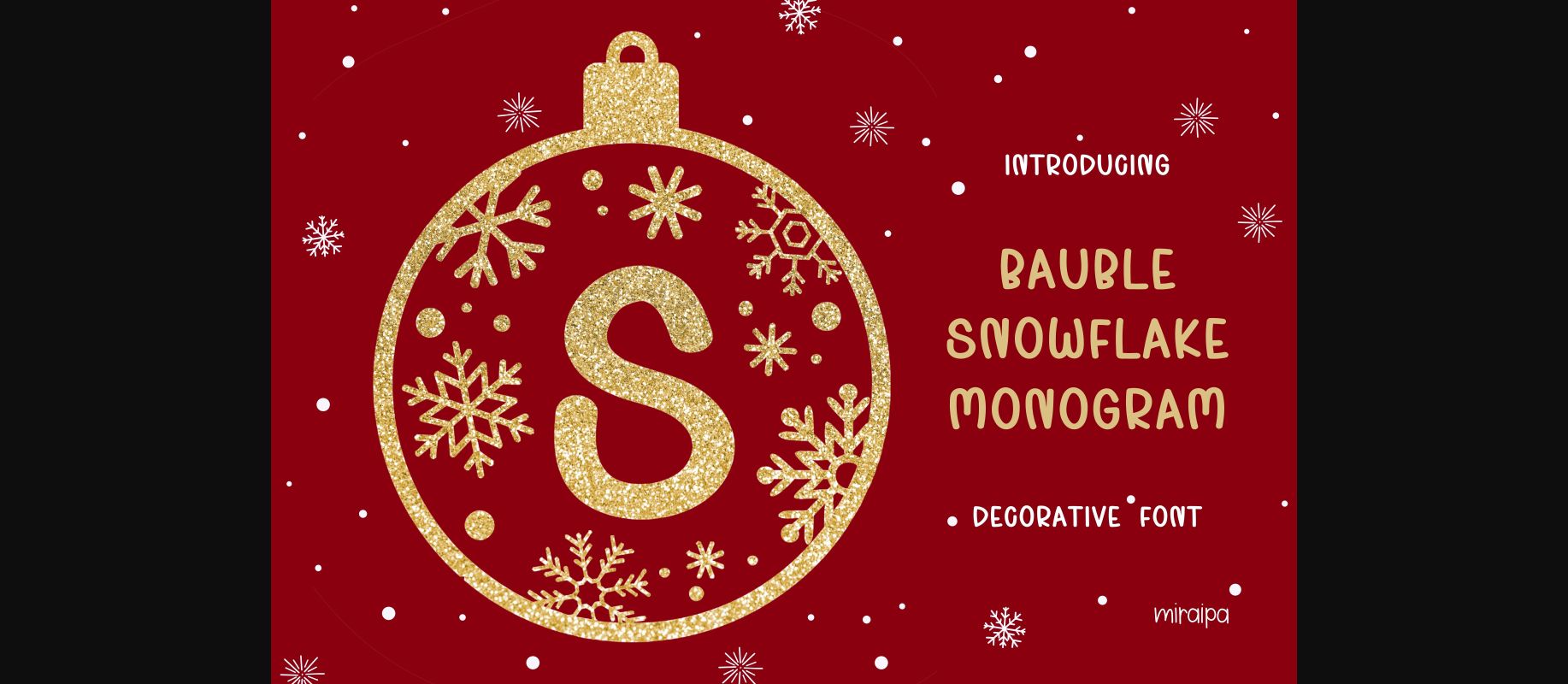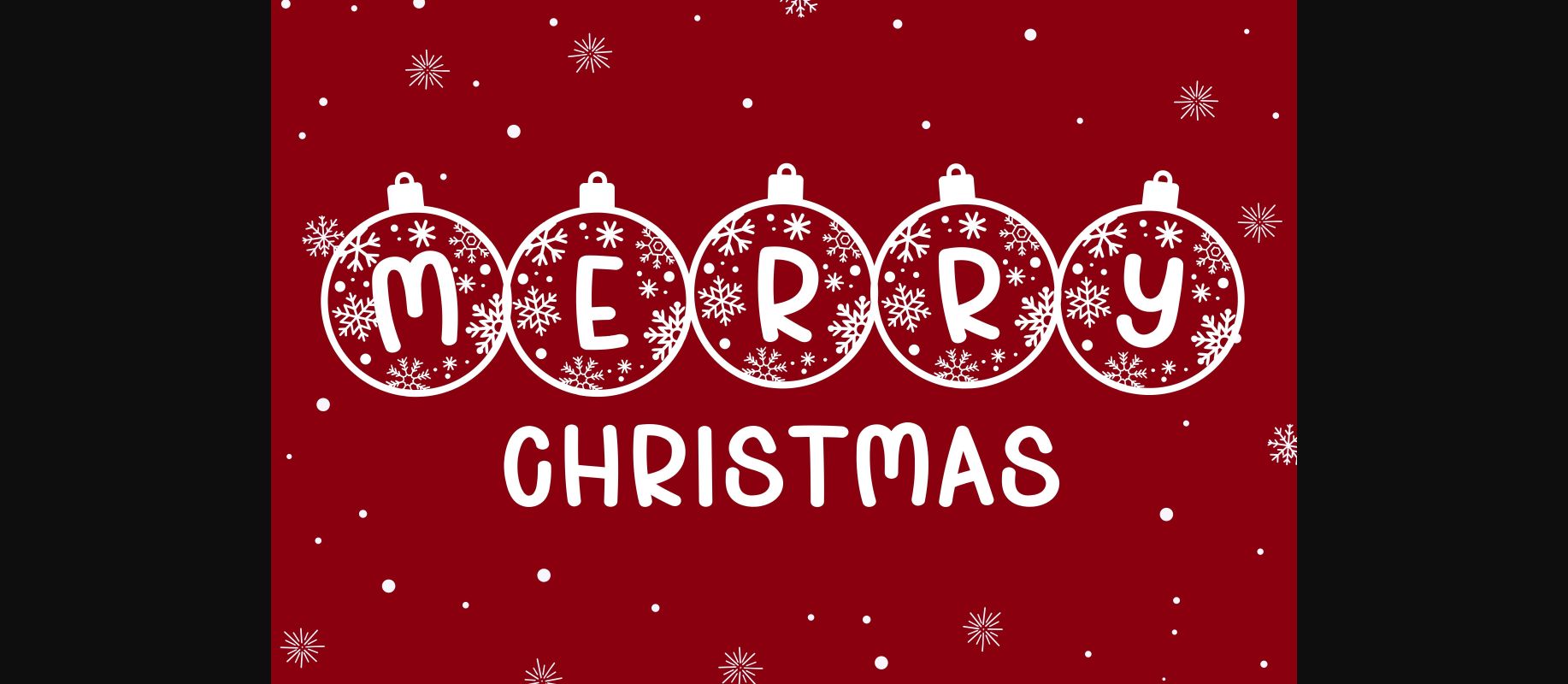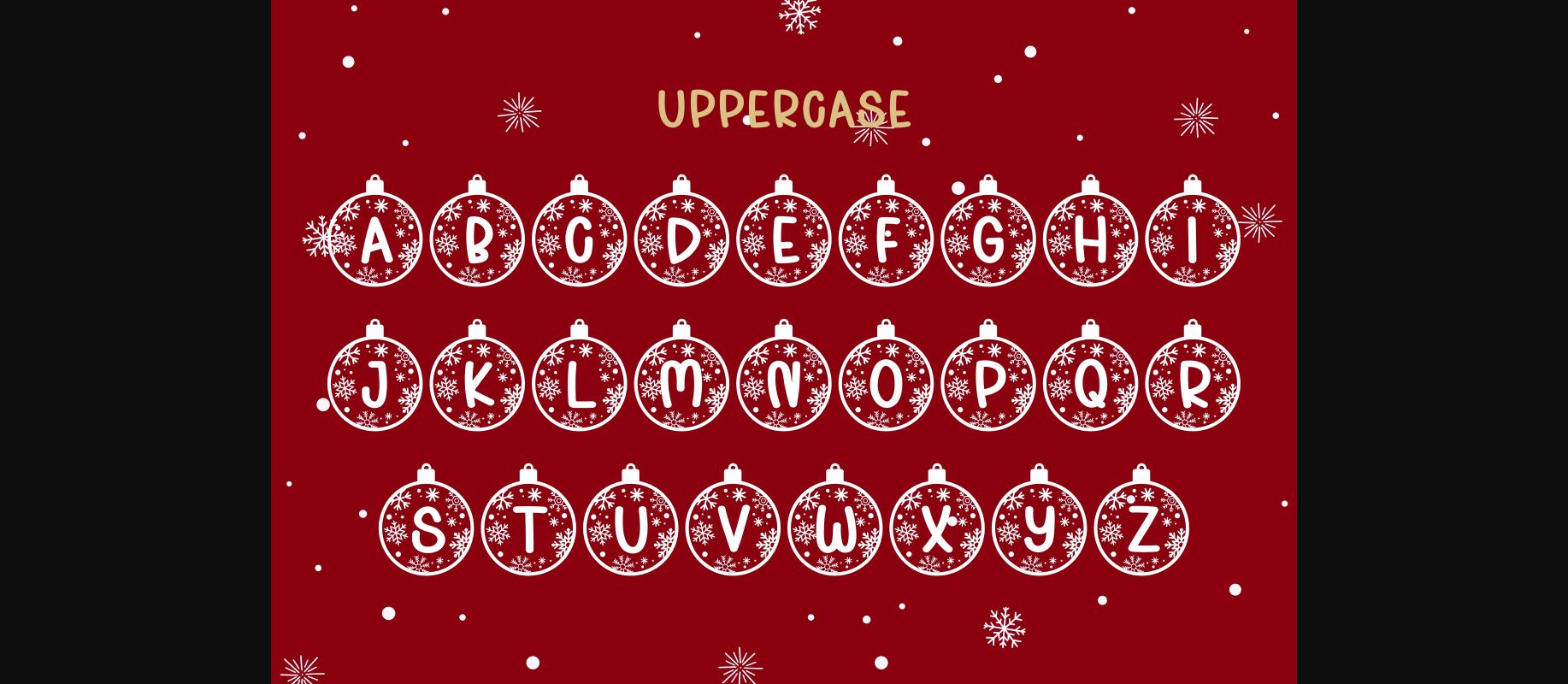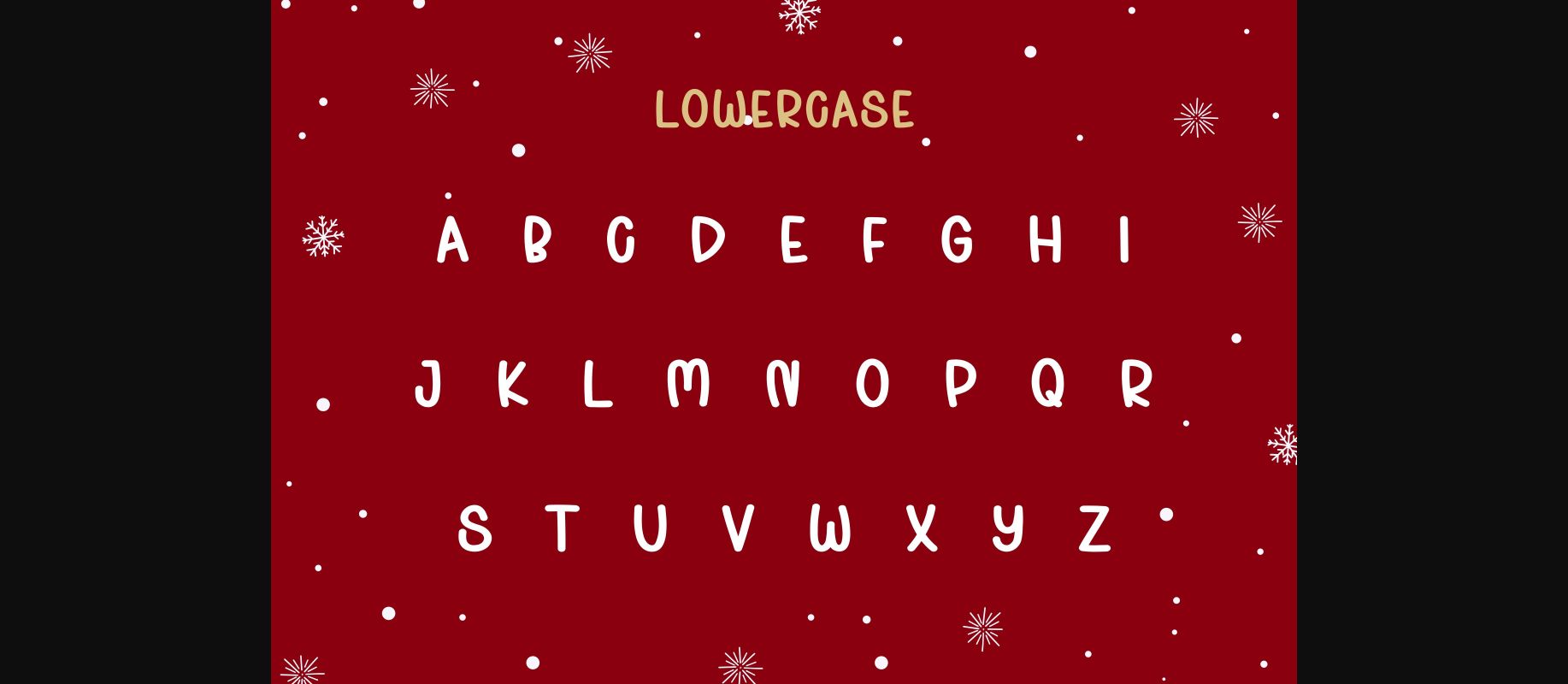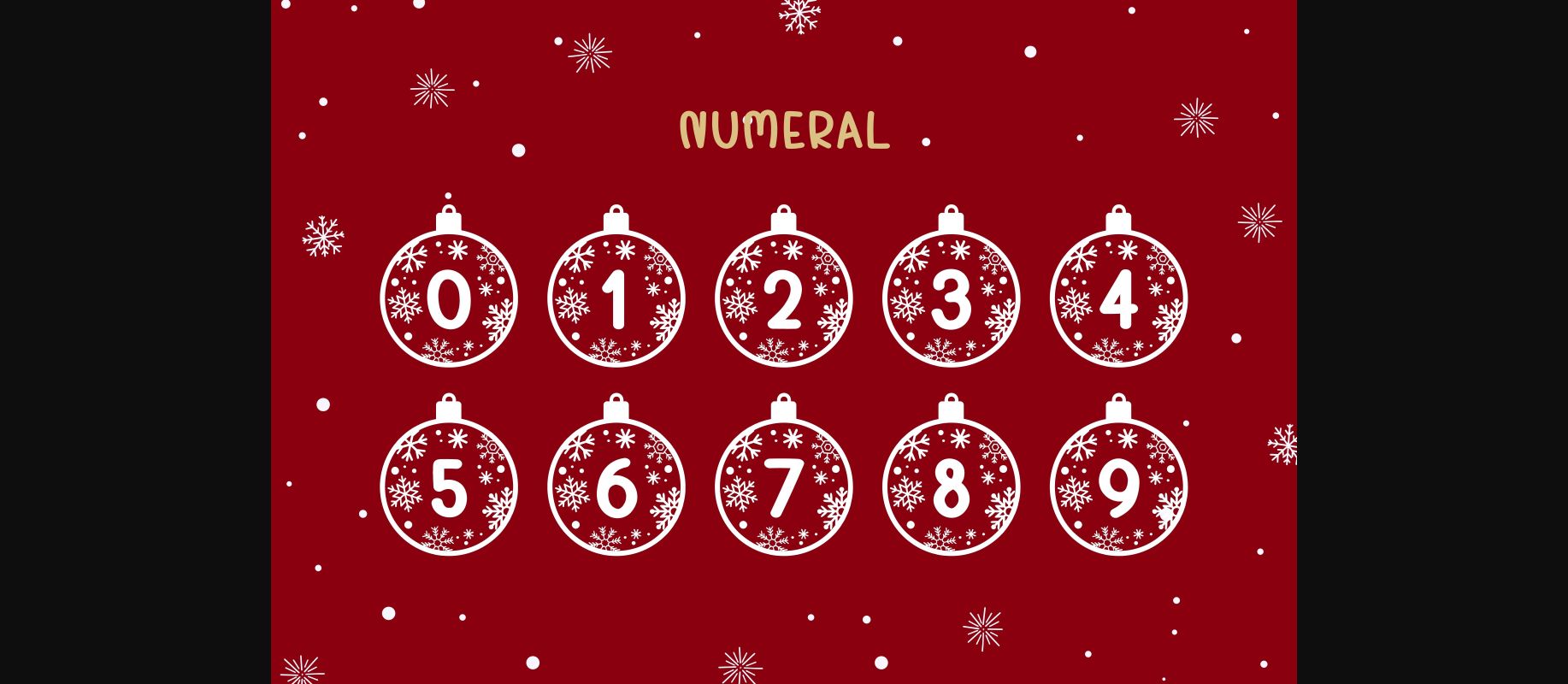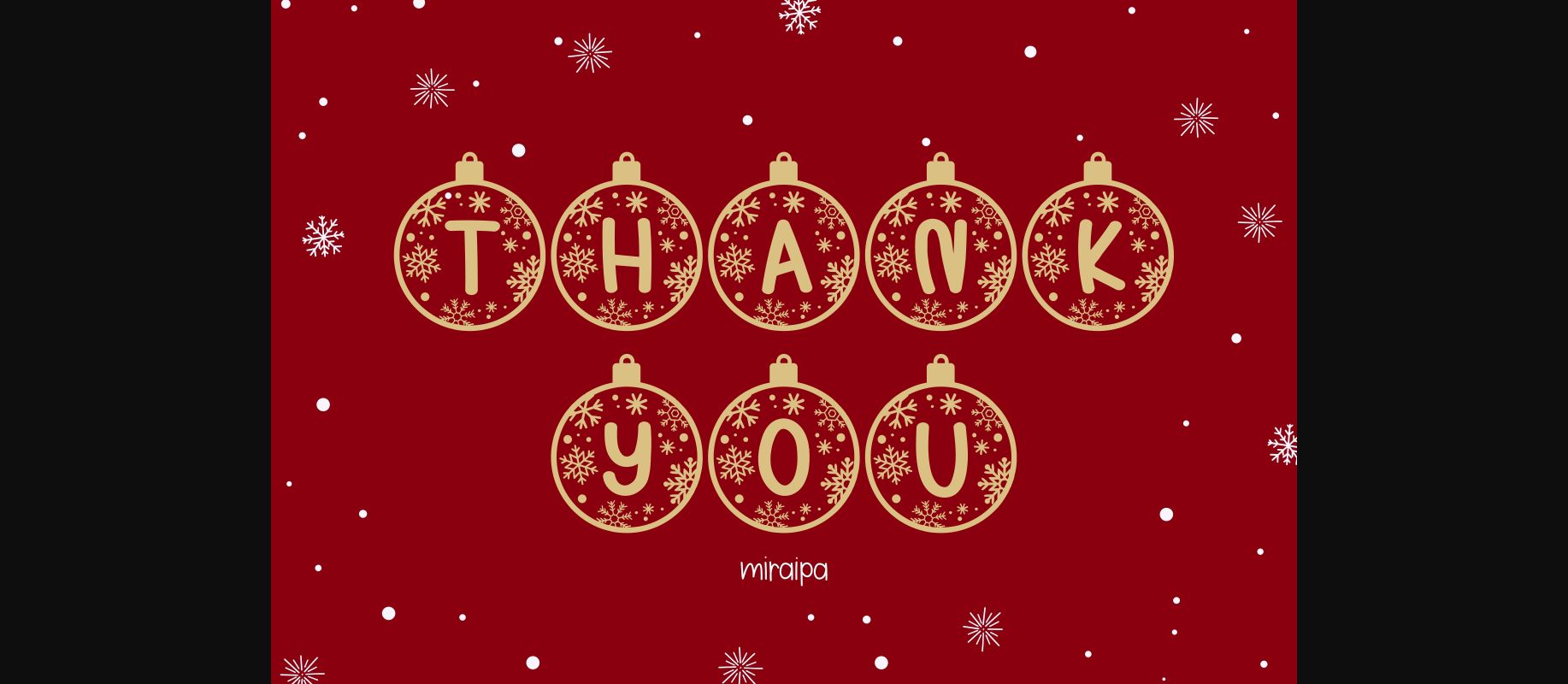
HomeDecorative FontsBauble Snowflake Font Decorative Fonts Bauble Snowflake Font FacebookXPinterestWhatsApp 1 of 8 ... Bauble Snowflake Font Poster 2... Bauble Snowflake Font Poster 3... Bauble Snowflake Font Poster 4... Bauble Snowflake Font Poster 5... Bauble Snowflake Font Poster 6... Bauble Snowflake Font Poster 7... Bauble Snowflake Font Poster 8... About Bauble Snowflake Font Bauble Snowflake is a cute and festive decorative font. Add this lovely monogram font to your winter creative ideas and you will love the results! DOWNLOAD NOW People also explored Virginia Font The Ephemeral Font Dopediary Font Bluesky Font Lovely Paws Font Joyce Kitchen Font Queen Script Flat Font Tahiti Sans Font 319 0 TagsBauble Snowflake Font Previous articleJoker FontNext articleXmas Sweater Font LEAVE A REPLY Cancel reply Comment: Please enter your comment! Name:* Please enter your name here Email:* You have entered an incorrect email address! Please enter your email address here Website: Save my name, email, and website in this browser for the next time I comment. Personal Use Free Planning Personal Use Free Read more about this font Rocketto Personal Use Free Read more about this font Satori Personal Use Free Read more about this font Zephan Personal Use Free Read more about this font BLOG Where to Buy American Fonts Online in 2024 Where to Buy American Fonts Online: The Ultimate Guide for 2024 Looking for the perfect American font to elevate your design projects? You're in the... The 10 Best Handwriting Fonts to Add Personality to Your Designs Top 10 Handwritten Fonts That Elevate Your Designs How to Cut Any Font on Cricut: Convert a Font to SVG (Free)